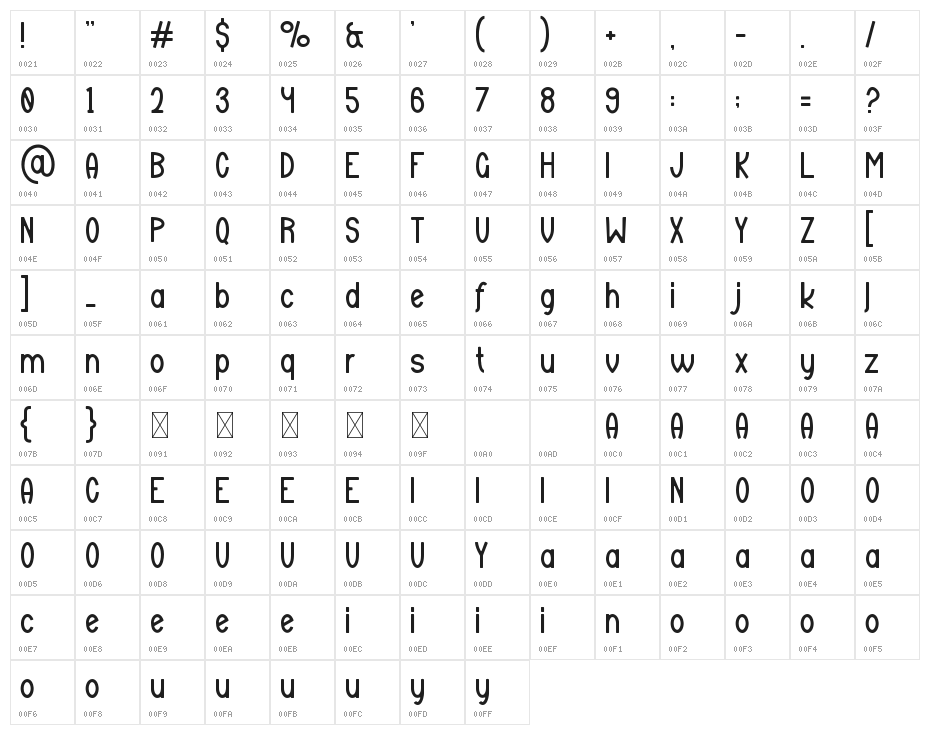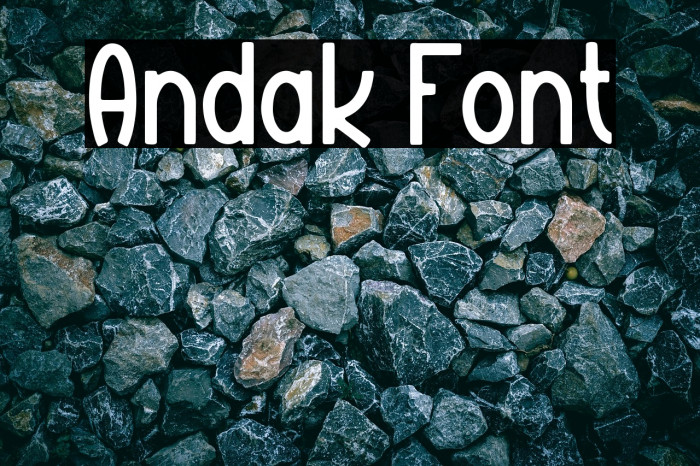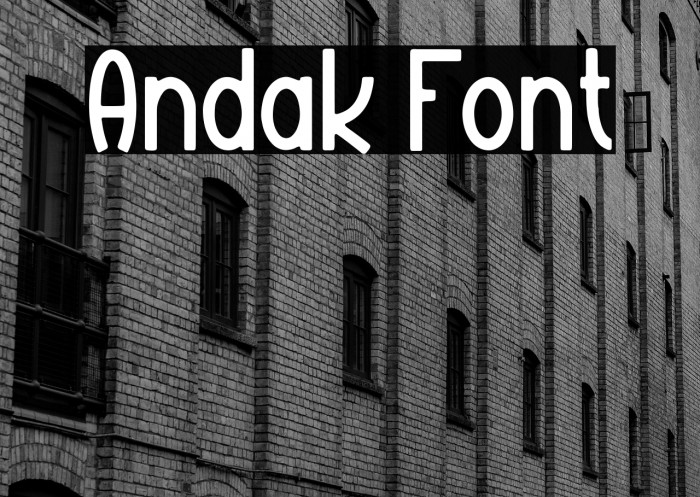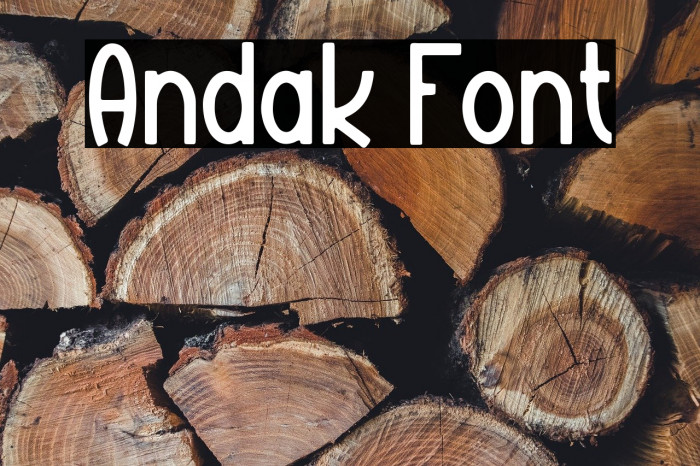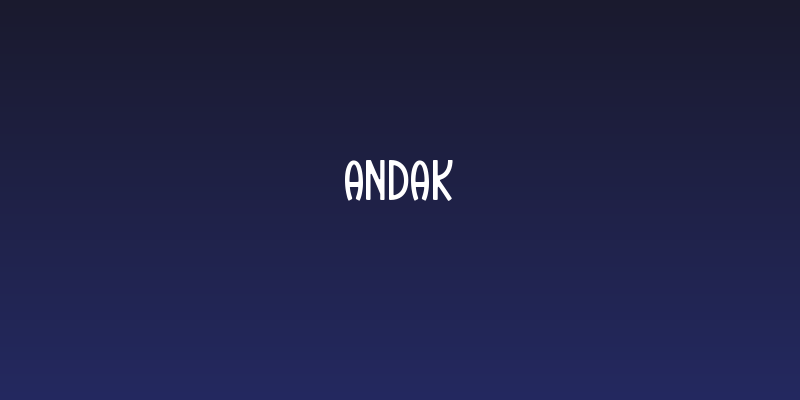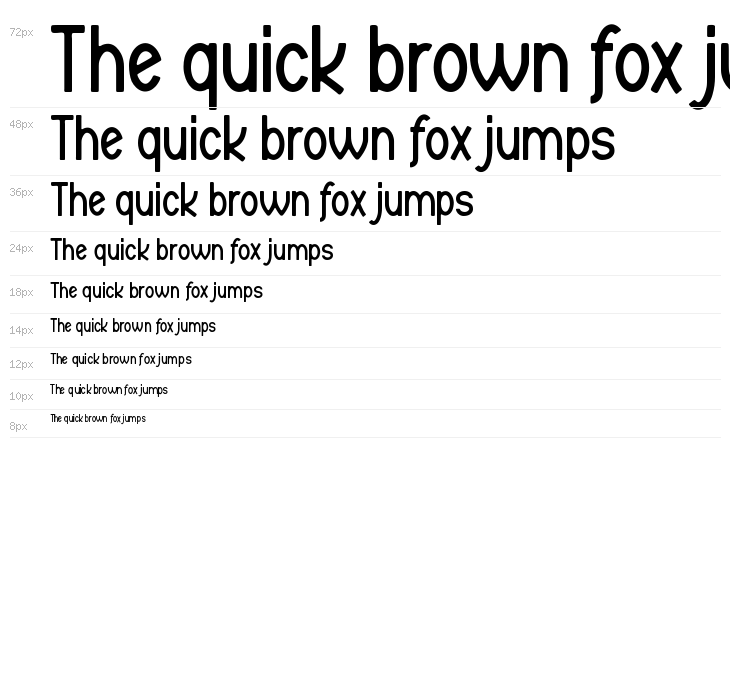
Andak Font
Andak Description
This font features a playful and rounded design, characterized by its smooth curves and friendly appearance. The letters are evenly spaced with a consistent stroke width, giving it a clean and approachable look. The uppercase and lowercase letters maintain a uniform style, while the numerals and special characters complement the overall aesthetic. Its simplicity and readability make it suitable for a variety of applications, from children's books to casual branding projects.
| Proposed Projects | Ideal for children's books, casual branding, playful posters, and informal invitations. |